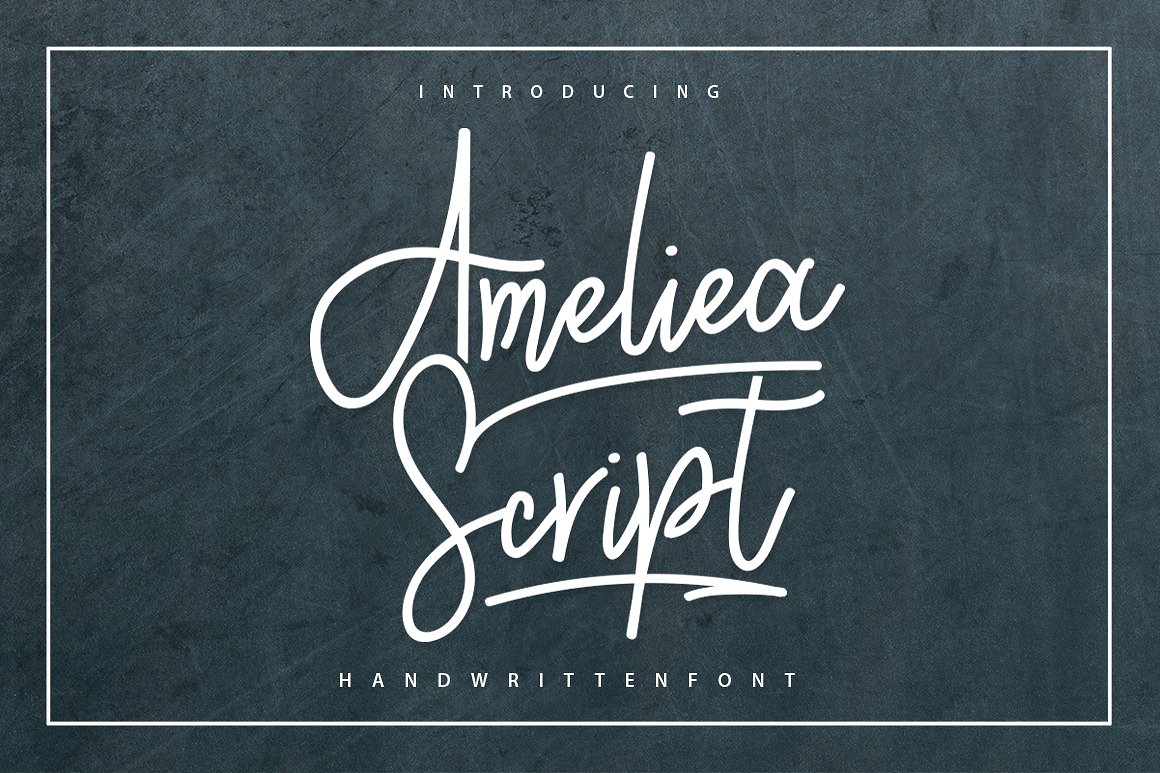
Ameliea
Ameliea Script Font
Ameliea is clean & classy signature-style font set . Very cool for logos, name tag, handwritten quotes, product packaging, merchandise, social media & greeting cards. And very easy to make design t-shirts and other products. Very save time in making the design of a product. It contains a full set of lower & uppercase letters, a large range of punctuation, numerals, and multilingual support.